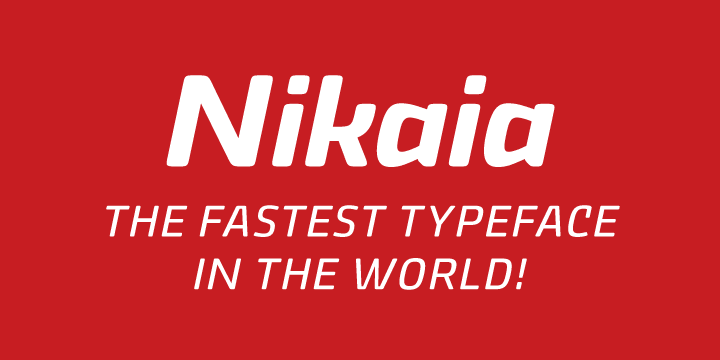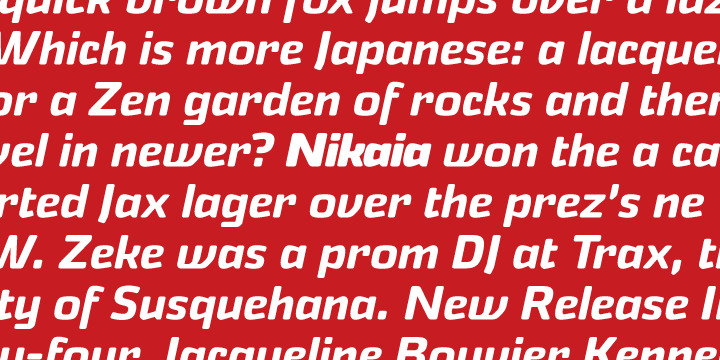
Nikaia
Font Family by Miller Type Foundry
Nikaia started as an experimental typeface (the script weights) and was then expanded to its logical conclusions (italic & regular), producing the fastest look typeface in the world. Nikaia looks clean and sharp at any size, with 5 weights for contrast.